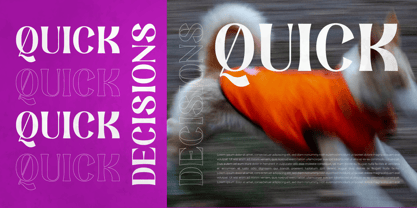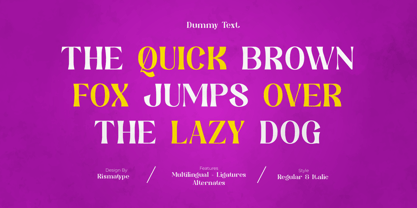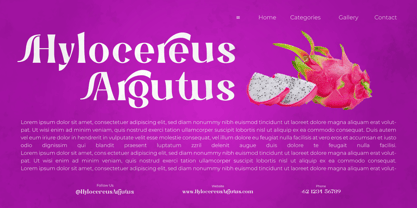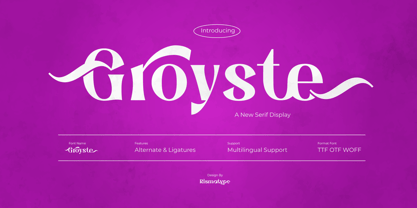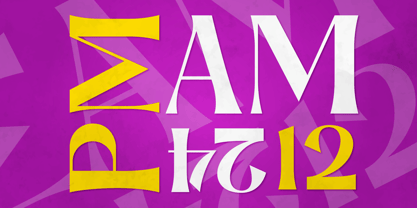
Groyste
by Risma Type
✨ Groyste ✨
Elegant and Contemporary Serif Display Font
Groyste is a serif display font crafted to exude sophistication and modern charm. Its distinctive details and graceful curves make it an exceptional choice for creating impactful designs with a refined touch, such as:
• Branding & Logos: Leave a striking and memorable impression.
• Editorial & Magazines: Enhance readability with a polished look.
• Invitations & Cards: Add a touch of class to special occasions.
💎 Transform every design with the timeless beauty of Groyste.
Inspire elegance and make your creations stand out with Groyste’s captivating style!